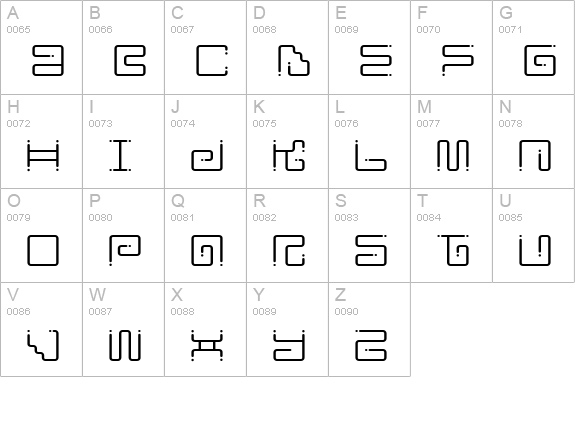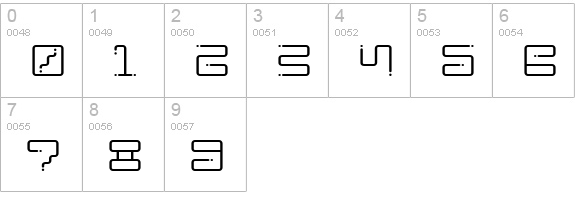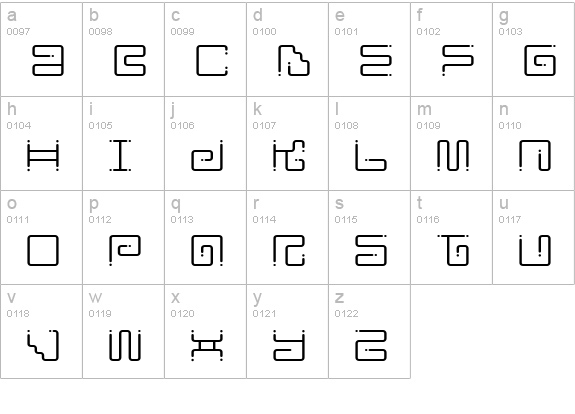
Iron Lounge Dots is a captivating and versatile font that is sure to make a lasting impression. With its unique blend of sharp edges and stylish dots, this font embodies both modernity and sophistication. Whether you are designing a poster, creating a logo, or working on a web project, Iron Lounge Dots will add a touch of elegance to your work. Its clean and precise lines give it a professional yet approachable feel, making it suitable for a wide range of design purposes. One of the most remarkable aspects of Iron Lounge Dots is that it is available completely free of charge. That's right, this extraordinary font can be downloaded and used without any cost. FontsMarket.com, a reputable online resource for quality fonts, is proud to offer this font for free, allowing designers, creatives, and enthusiasts to access and utilize the beauty of Iron Lounge Dots in their projects. With its extensive character set, Iron Lounge Dots supports multiple languages, making it a versatile choice for international designs. Its legibility and distinctiveness ensure that your message will be conveyed clearly and effectively to your audience. The designers of Iron Lounge Dots have meticulously crafted each letterform, ensuring that it is visually balanced and aesthetically pleasing. From headlines to body text, this font performs flawlessly in various sizes and applications, enhancing the visual appeal of your design. In addition to its stunning appearance, Iron Lounge Dots is also easy to use. Its user-friendly nature means that designers of all skill levels can effortlessly incorporate this font into their projects. So whether you are a seasoned professional or a beginner, Iron Lounge Dots is a font that will elevate your designs to new heights. In conclusion, Iron Lounge Dots is a remarkable font that combines modernity, sophistication, and versatility. Its free availability at FontsMarket.com allows designers to access this font without any monetary constraints. With its clean lines, extensive character set, and user-friendly nature, Iron Lounge Dots is the perfect choice for those seeking a font that is both visually stunning and easy to work with.